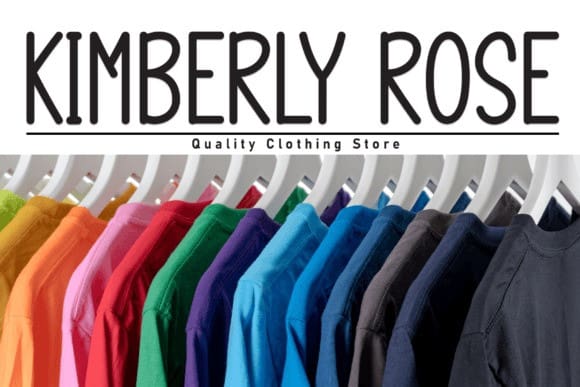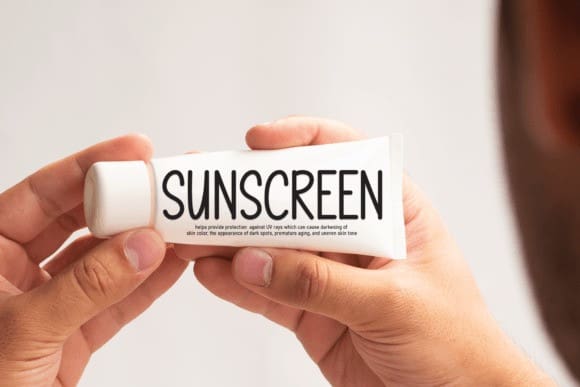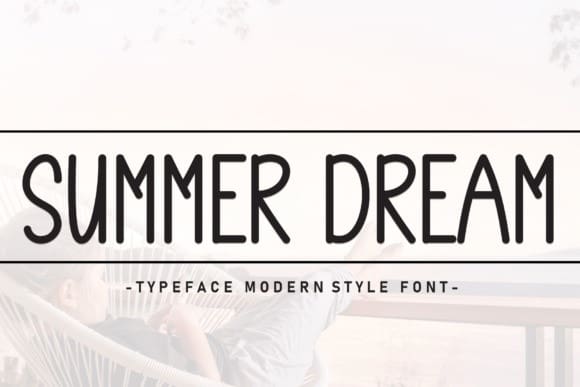
Summer Dream Font
Summer Dream Font, This is a sweet and friendly handwritten display font. Cute and fun, this font is ideal for writing wedding invitations, cards, or any other design that might need a fun touch!